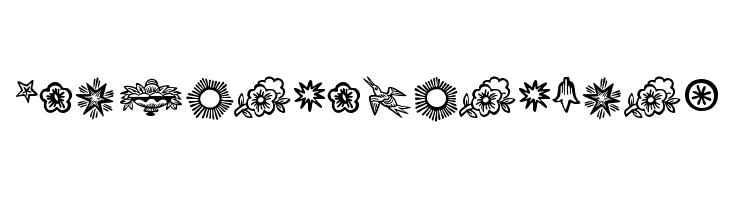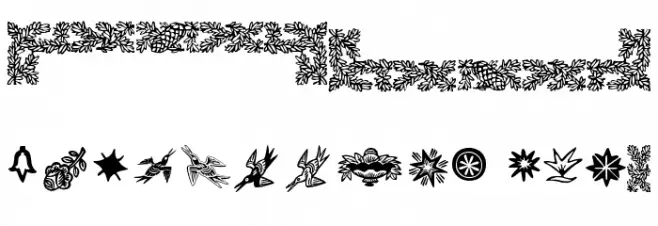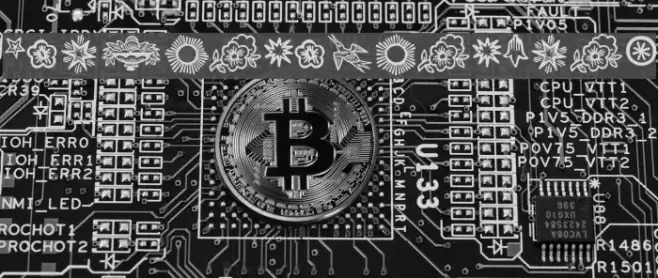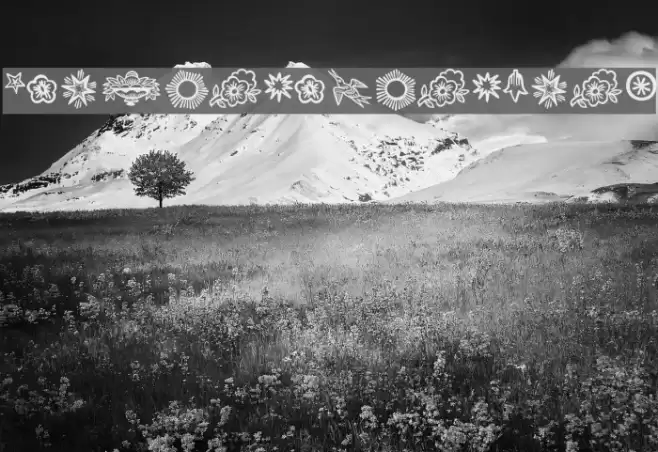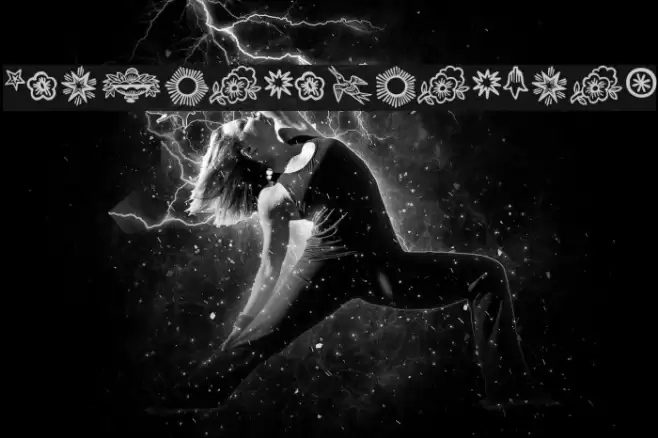
DeutscherSchmuck Font
| Stile generale | Decorative, Vintage |
| Caso d'uso | Borders, embellishments, icons, and decorative elements in print or digital design. |
| Progetti proposti | Invitations, greeting cards, decorative borders, scrapbooking, vintage-themed designs, ornamental dividers, and embellishments. |